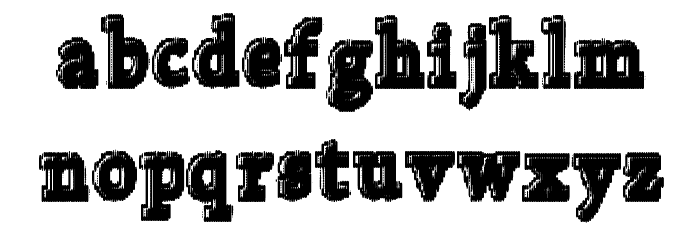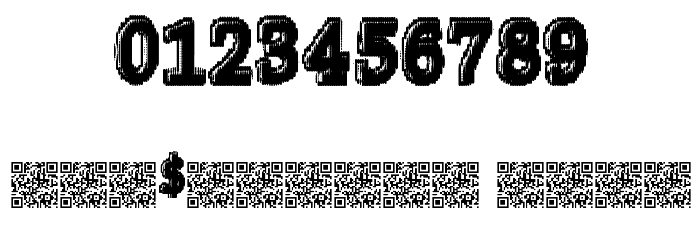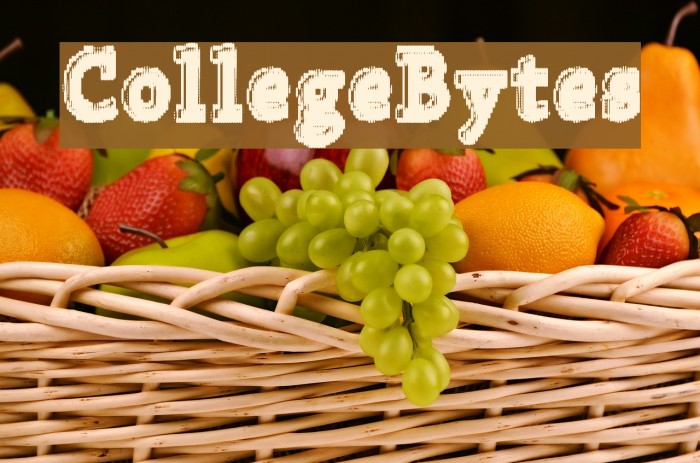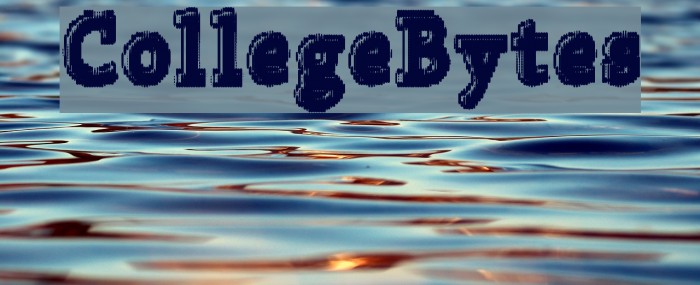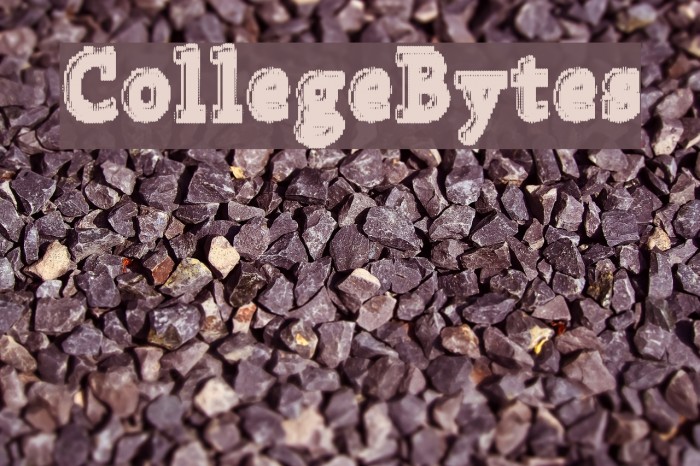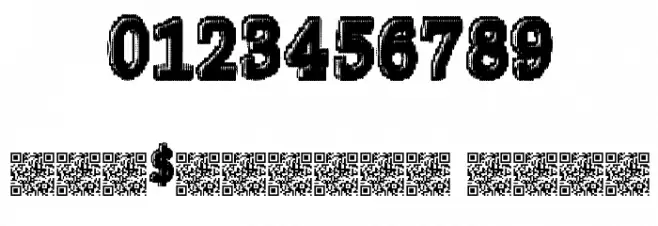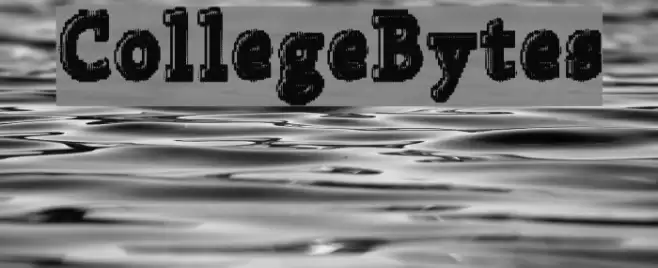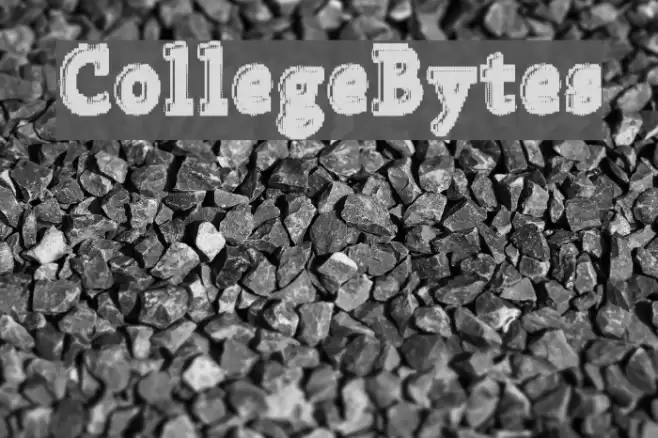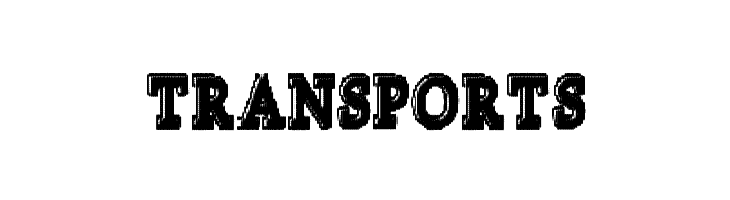
CollegeBytes Font
This font features a bold, textured style with a vintage flair, reminiscent of collegiate or varsity themes. The uppercase letters are prominent and commanding, while the lowercase letters maintain a consistent weight and style. The numbers and special characters share the same bold and textured appearance, making them stand out. The font's design is characterized by its slab serif elements, giving it a strong and sturdy look. The texture within each character adds a unique, slightly distressed effect, enhancing its vintage appeal.
A bold, textured slab serif font with a vintage collegiate style.
- Proposed Projects: Ideal for sports team branding, college-themed apparel, posters, and retro-style logos.
- Overall Style: Vintage
- Use Case: Logos, Posters, Apparel